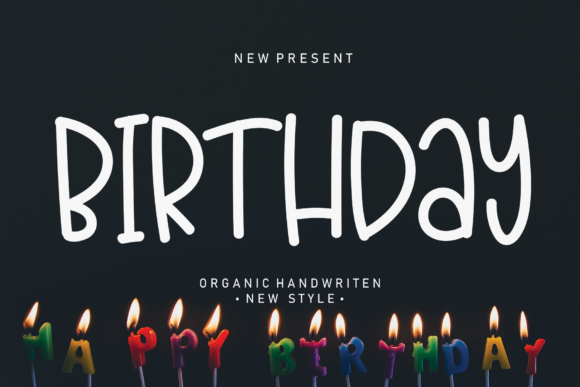
The Birth of a Beautiful Font: A Designer’s Delight
I’ll never forget the moment I stumbled upon the perfect font for a client’s birthday project. I was working on a custom wedding invitation, and my client was adamant that it needed a special, handcrafted feel. I scoured the internet, tried out countless fonts, but nothing seemed quite right. That was until I discovered the Birthday Font – an organic, handwritten font that instantly elevated my design.
As a designer, I’m always on the lookout for fonts that can bring a touch of personality to my projects. Here’s what I love about the Birthday Font:
- ✨ Unique and stylish: The Birthday Font has a distinct, handcrafted feel that’s perfect for making a statement.
- ✅ Highly versatile: From wall displays to social media posts, this font can be used for a wide range of projects.
- 💕 Easy to read: Despite its organic feel, the font remains clear and legible, even at smaller sizes.
- 🤔 Limited use of uppercase letters: While the font does include uppercase letters, they’re not as stylized as the lowercase letters.
- ⚠️ Occasional kerning issues: As with any font, you may need to adjust the kerning to get the perfect spacing.
A Practical Guide: Using the Birthday Font in Your Projects
- Take advantage of OpenType features, such as glyphs and stylistic alternates, to add extra flair to your design.
The Story Behind the Font: Designer Inspiration
The Birthday Font was created with the intention of capturing the warmth and personality of handwritten text. The designer, inspired by the imperfections and uniqueness of human handwriting, crafted a font that’s both stylish and approachable. While the true story behind the font’s creation may be unknown, its impact on the design world is undeniable.
| Is the Birthday Font suitable for body text? | While the Birthday Font is beautiful, it’s best suited for headings, titles, and short paragraphs. For body text, a clearer font may be more suitable. |